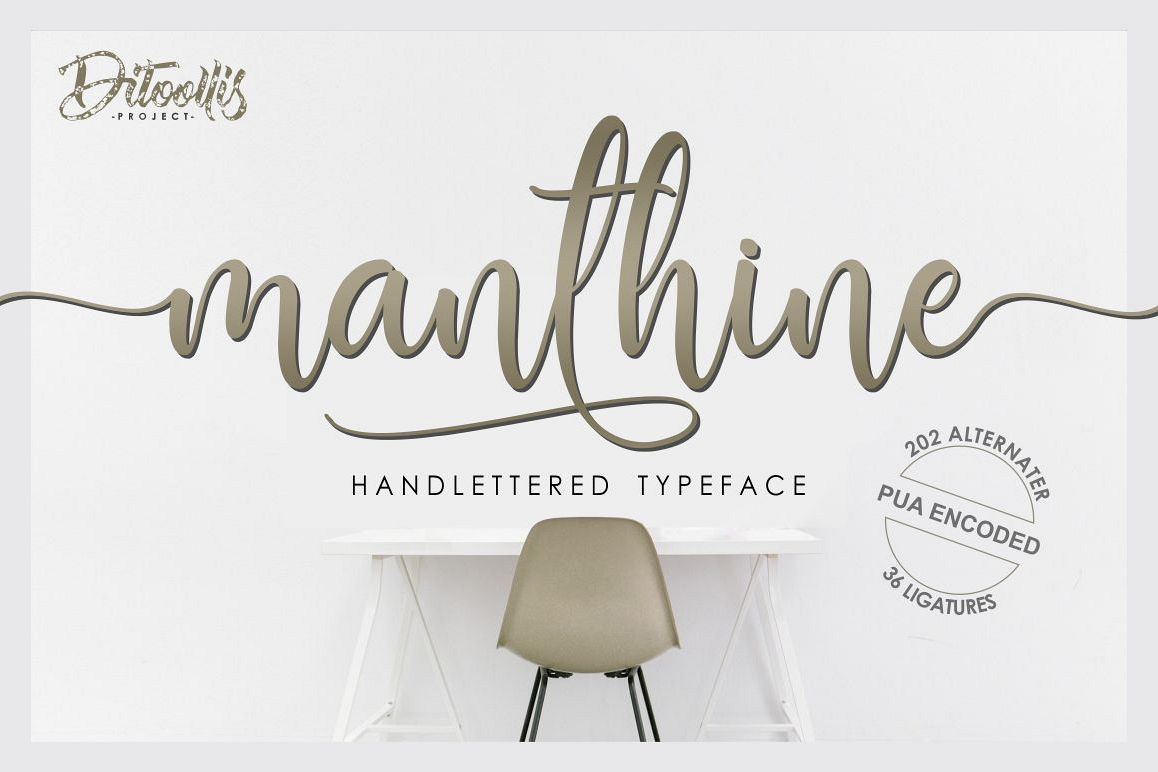
Manthine
I will introduce my newest product "manthine"
This font is very modern, and is perfect for your design ...
This font is suitable for business cards, logos, covers, comics, invitations, etc.
Equipped with font:
- numbers
And of course there are several other features:
- Alternates